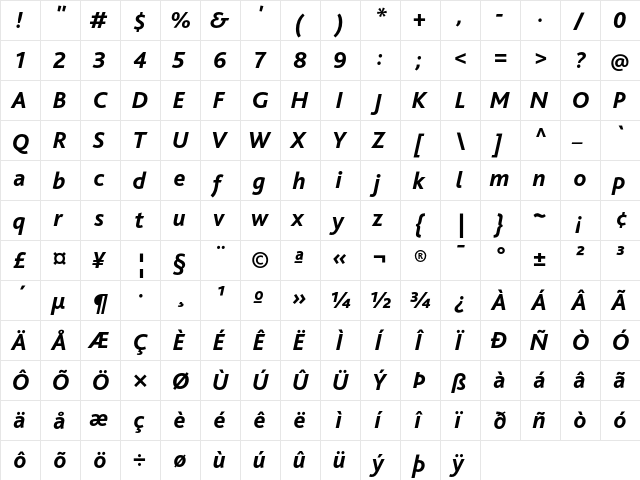
BlissPro Italic Font Preview
BlissPro Italic
BlissPro Italic Font Details
| Foundry | JT Types Ltd, |
Design Context for BlissPro Typeface
BlissPro takes a measured approach to typography — its balanced proportions and neutral character make it a reliable workhorse for both digital and print work. Its italic angle brings a sense of urgency and motion to the letterforms.
Pro Tip: Try BlissPro for annotation and caption copy alongside an upright companion — the contrast in angle creates a dynamic but ordered typographic system.